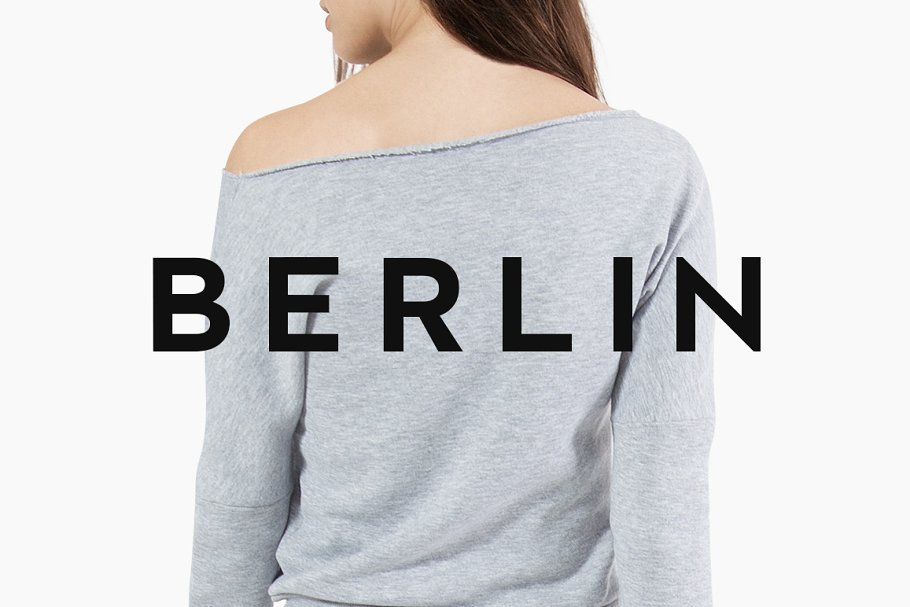
Berlin Font
Berlin Font is perfect for modern German corporate branding, European tech companies, contemporary architecture firms, minimalist design studios, progressive cultural institutions, and international business communications. Its authoritative character makes it ideal for engineering consultancies, automotive manufacturers, precision instrument companies, German financial services, industrial design agencies, and any project requiring Germanic excellence with systematic precision and contemporary European professionalism.
This font is exciting because it captures the essence of German engineering excellence and systematic design thinking while delivering exceptional functionality for modern global communications. The precisely constructed letterforms embody the principles of clarity, efficiency, and reliability that define German design philosophy, creating powerful brand communications that resonate with audiences who value quality, precision, and methodical excellence in business and design.
The Berlin Font family typically includes Light, Regular, Medium, and Bold weights with systematic alternates, Germanic ligatures, and precision-engineered elements that enhance its authoritative personality. This comprehensive collection enables designers to create reliable brand systems that maintain German quality standards while providing flexibility for various international applications requiring European credibility and systematic approach to communication design.
Whether you're developing identity systems for German corporations, creating materials for European business conferences, or designing documentation for precision manufacturing companies, Berlin Font Free Download delivers the systematic excellence and Germanic authority that commands respect in international markets. Its commanding presence ensures professional recognition across digital platforms and print materials, making it perfect for websites, mobile applications, and corporate campaigns that celebrate German innovation, European precision, and the systematic approach to excellence that defines contemporary German business culture with uncompromising quality and international credibility.